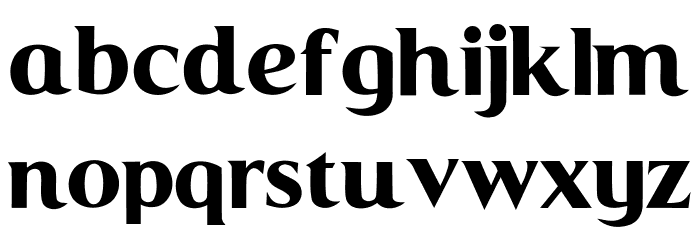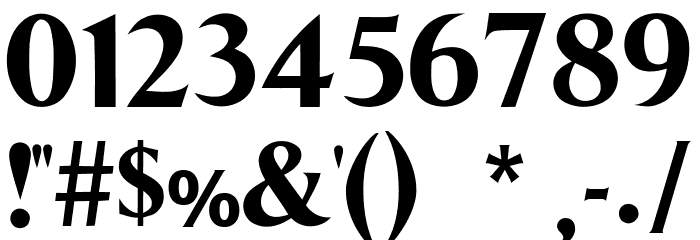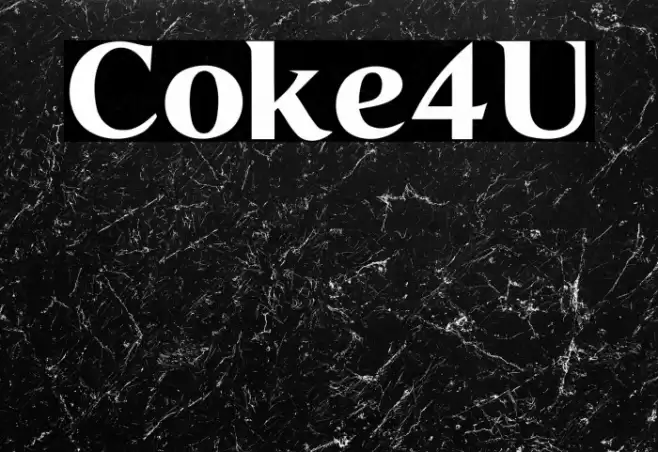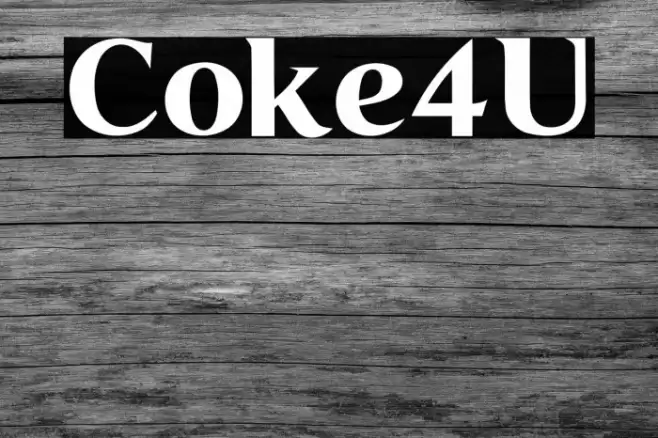
Coke4U Font
This font features a bold and elegant serif design, characterized by its strong, confident strokes and classic appeal. The uppercase letters are robust with a slight tapering at the ends, giving them a refined and sophisticated look. The lowercase letters maintain a consistent style, with smooth curves and a balanced weight that enhances readability. The numerals are distinct and clear, matching the overall boldness of the alphabet. Special characters are well-integrated, maintaining the font's cohesive style. This font exudes a timeless elegance, making it suitable for a variety of applications.
A bold, elegant serif font with strong strokes and classic appeal.
- Proposed Projects: Ideal for branding, editorial design, book covers, and luxury product packaging.
- Overall Style: Classic
- Use Case: Headlines, Logos, Editorial Design